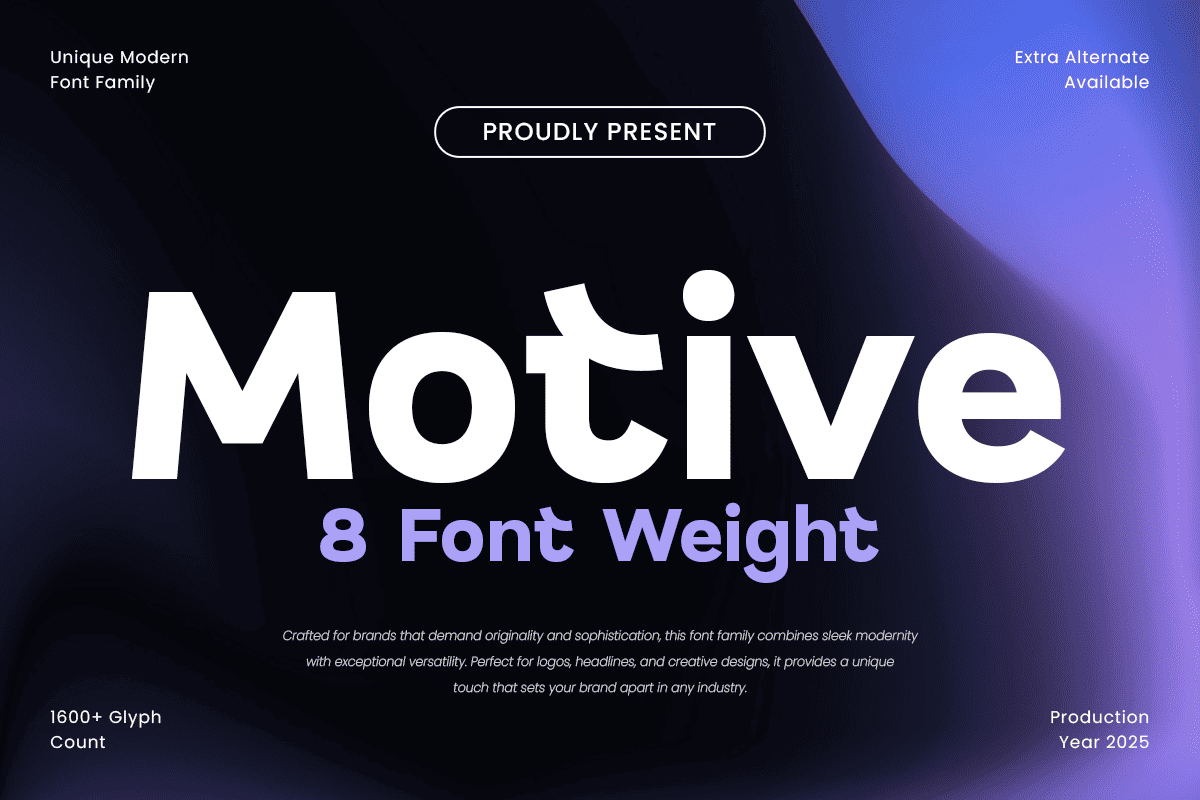
Motive
-Unique Logo Branding Font Family
Motive - Unique Logo Branding Font Family
Motive is a unique modern font family crafted for those who seek versatility and boldness in their designs. With a wide range of weights and styles, Motive is perfect for creating a strong visual identity across digital and print platforms.
From branding to logos, websites to editorial layouts, Motive brings a sleek and contemporary feel to your projects. Its clean lines, balanced proportions, and unique character shapes make it perfect for modern brands, creative agencies, and graphic designers looking to make a memorable impression. Whether you need a bold, attention-grabbing headline or a sleek, professional logo, Motive offers everything you need for any design task.
Motive – Unique Modern Font Family Features
• Available in multiple weights and styles for complete design flexibility
• Clean, minimalist design with modern appeal
• Ideal for logos, headlines, websites, and print layouts
• OpenType features for enhanced typographic control